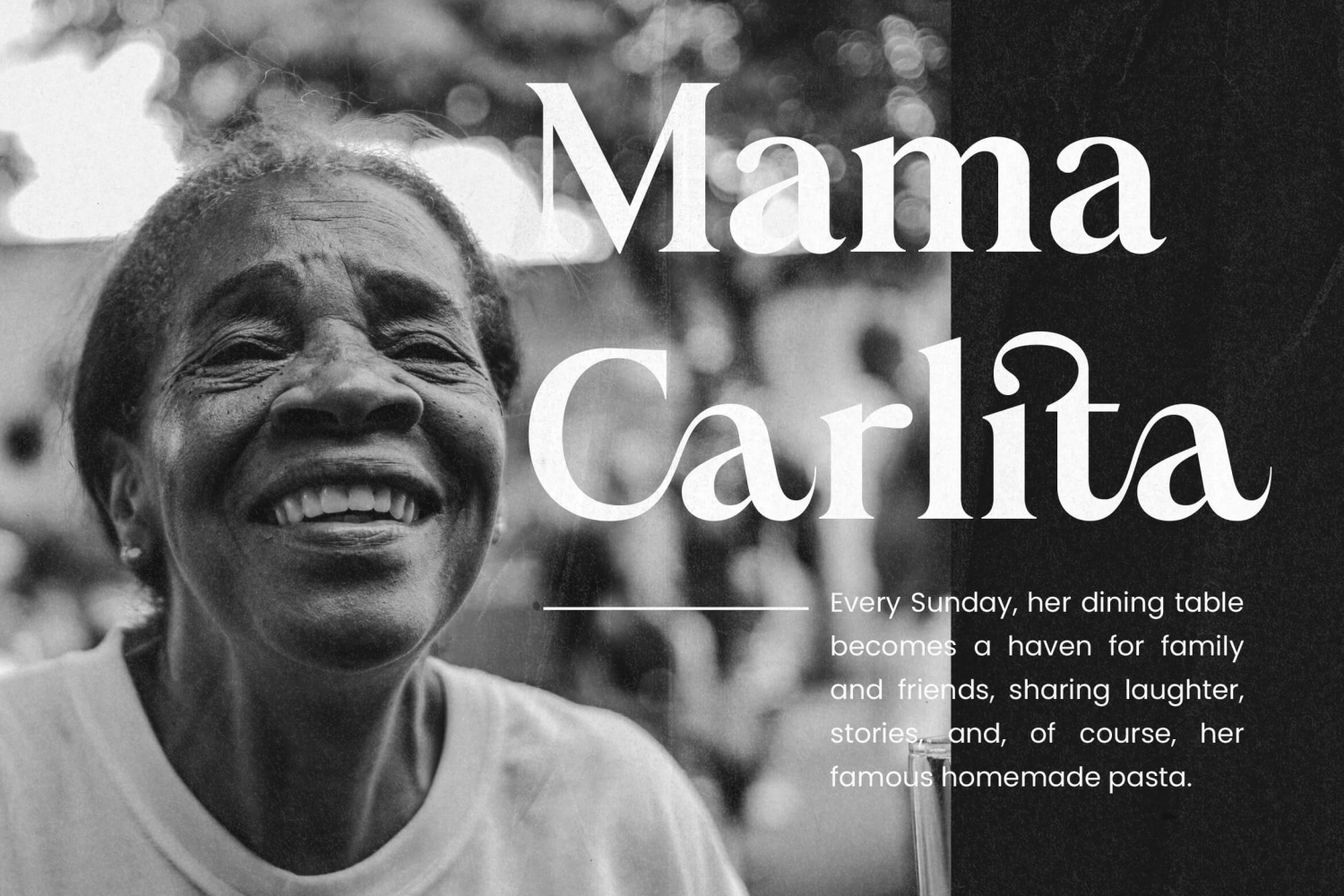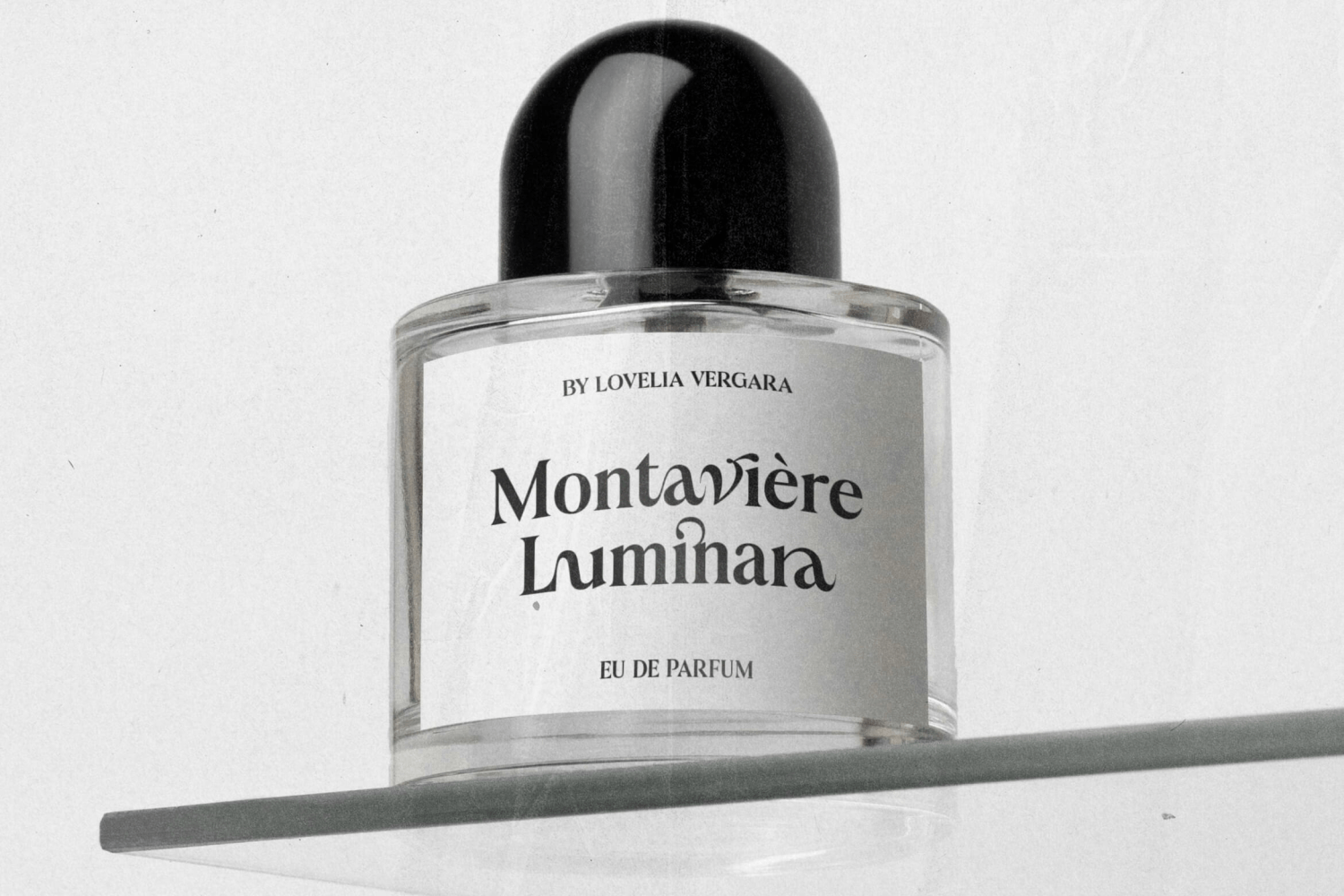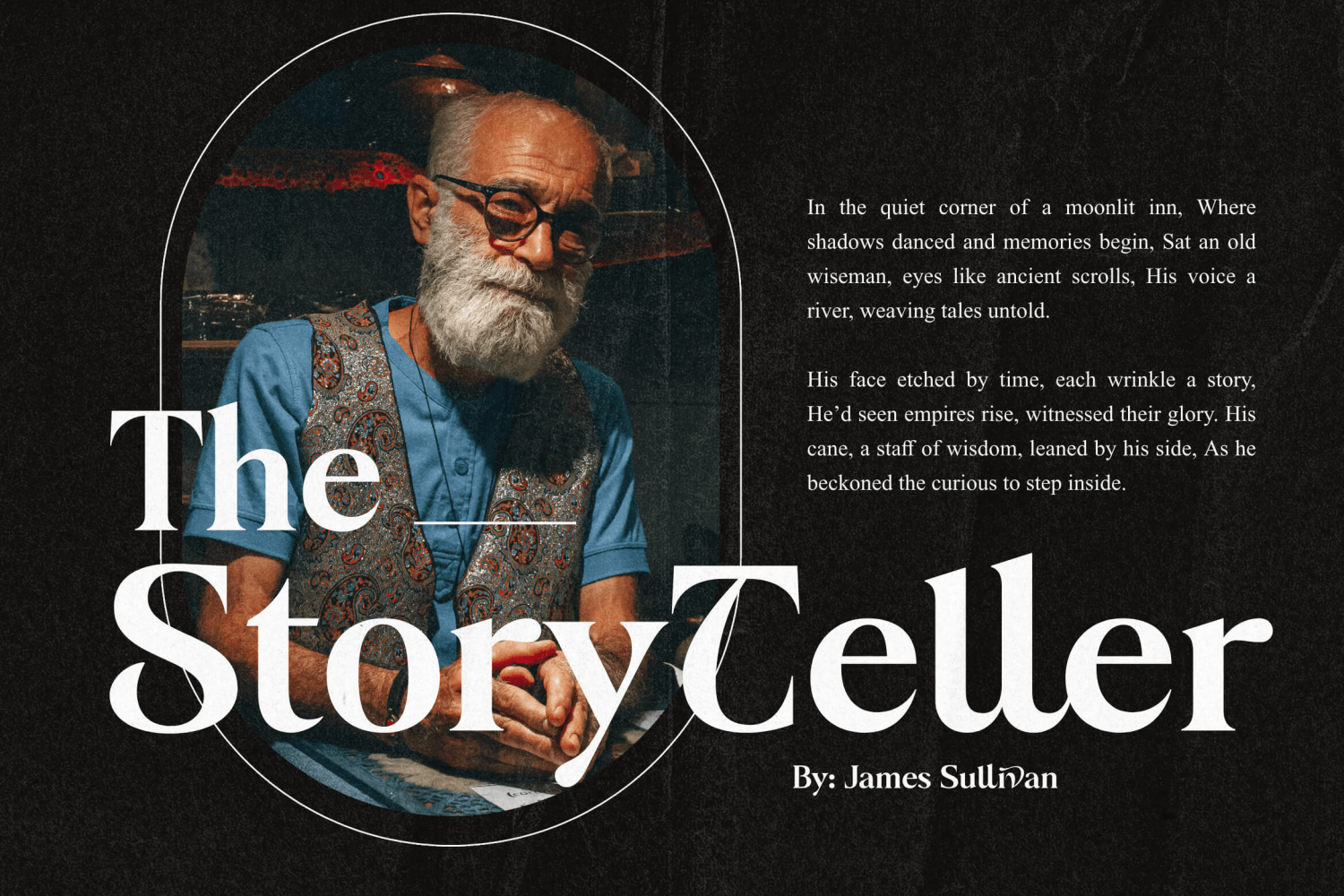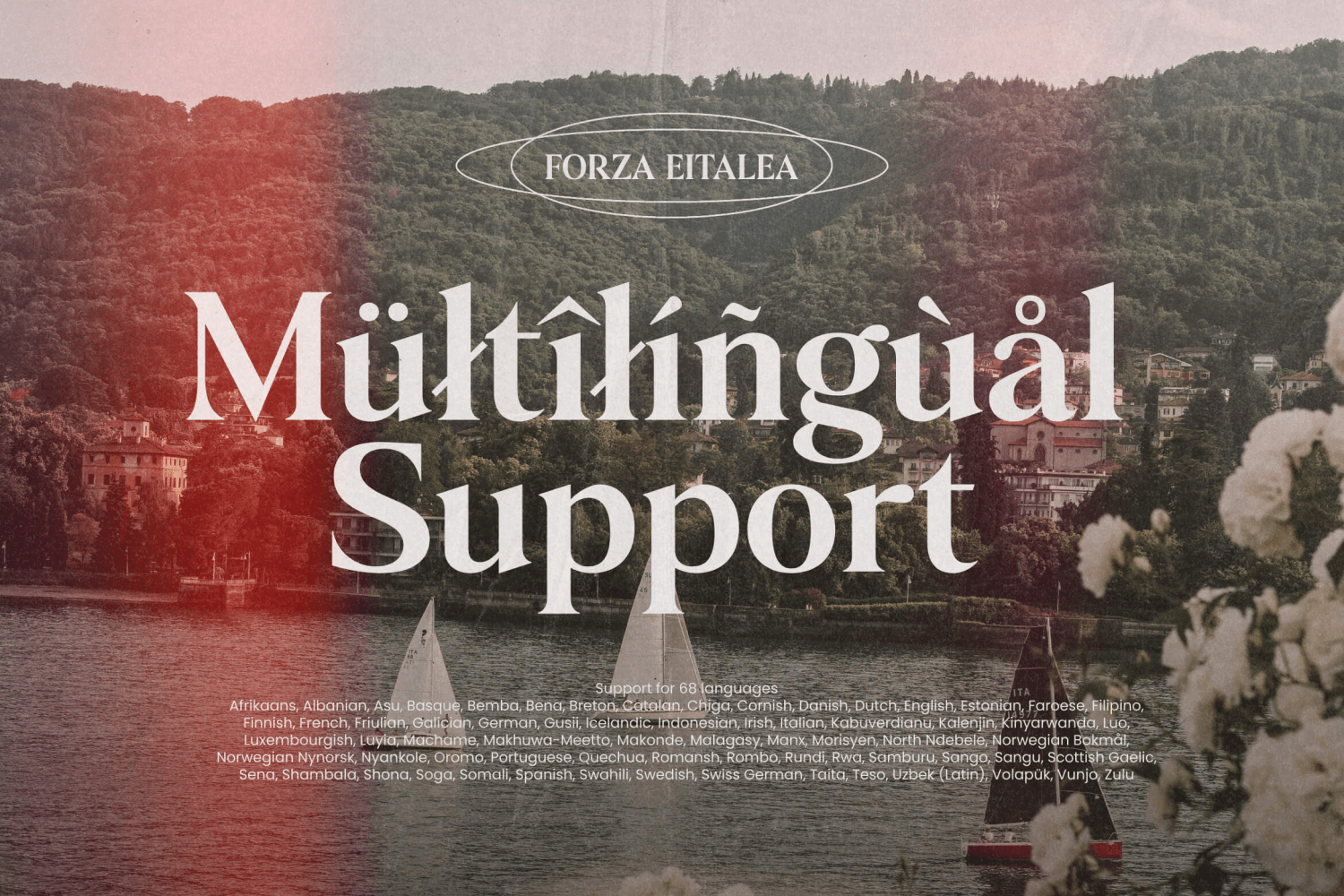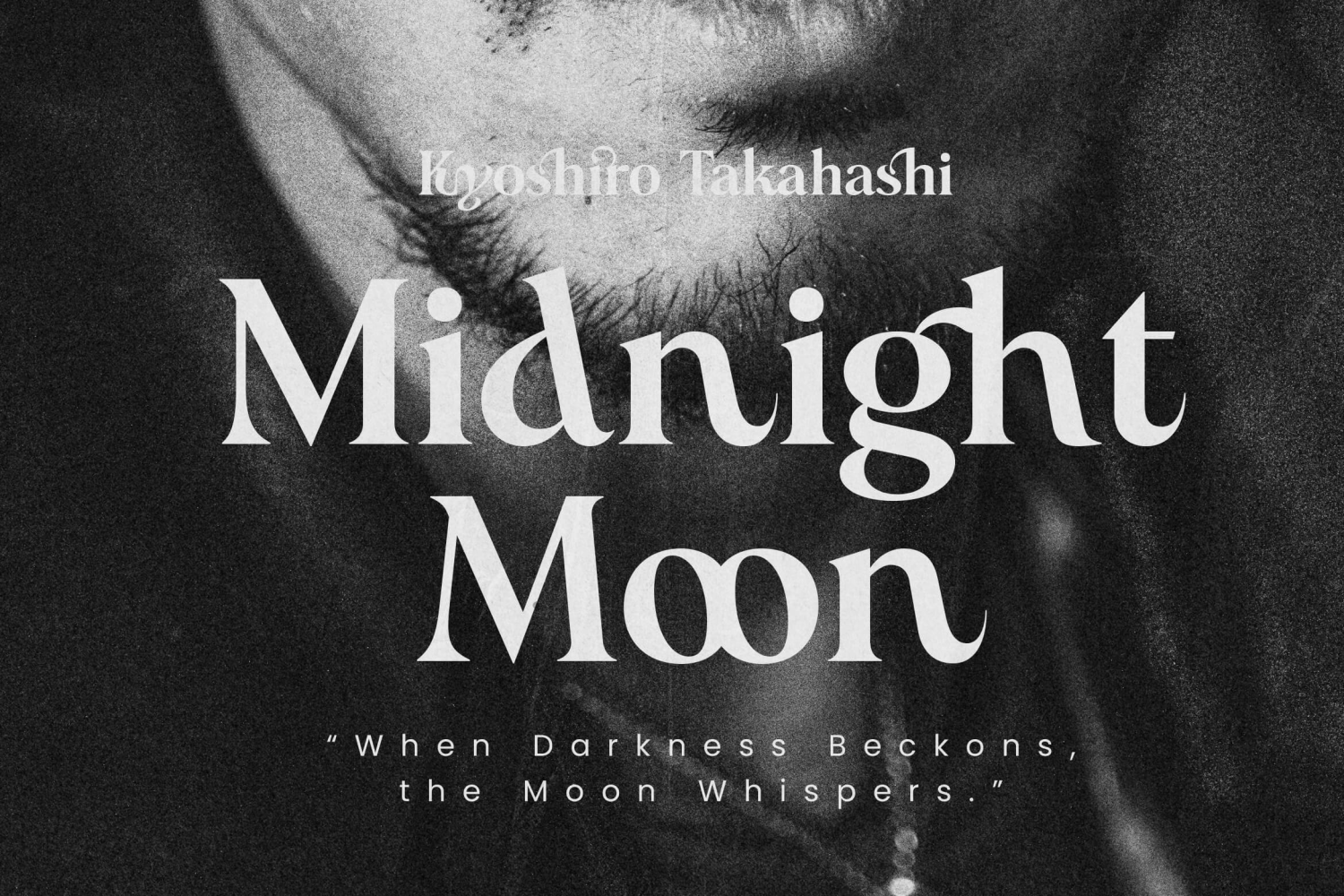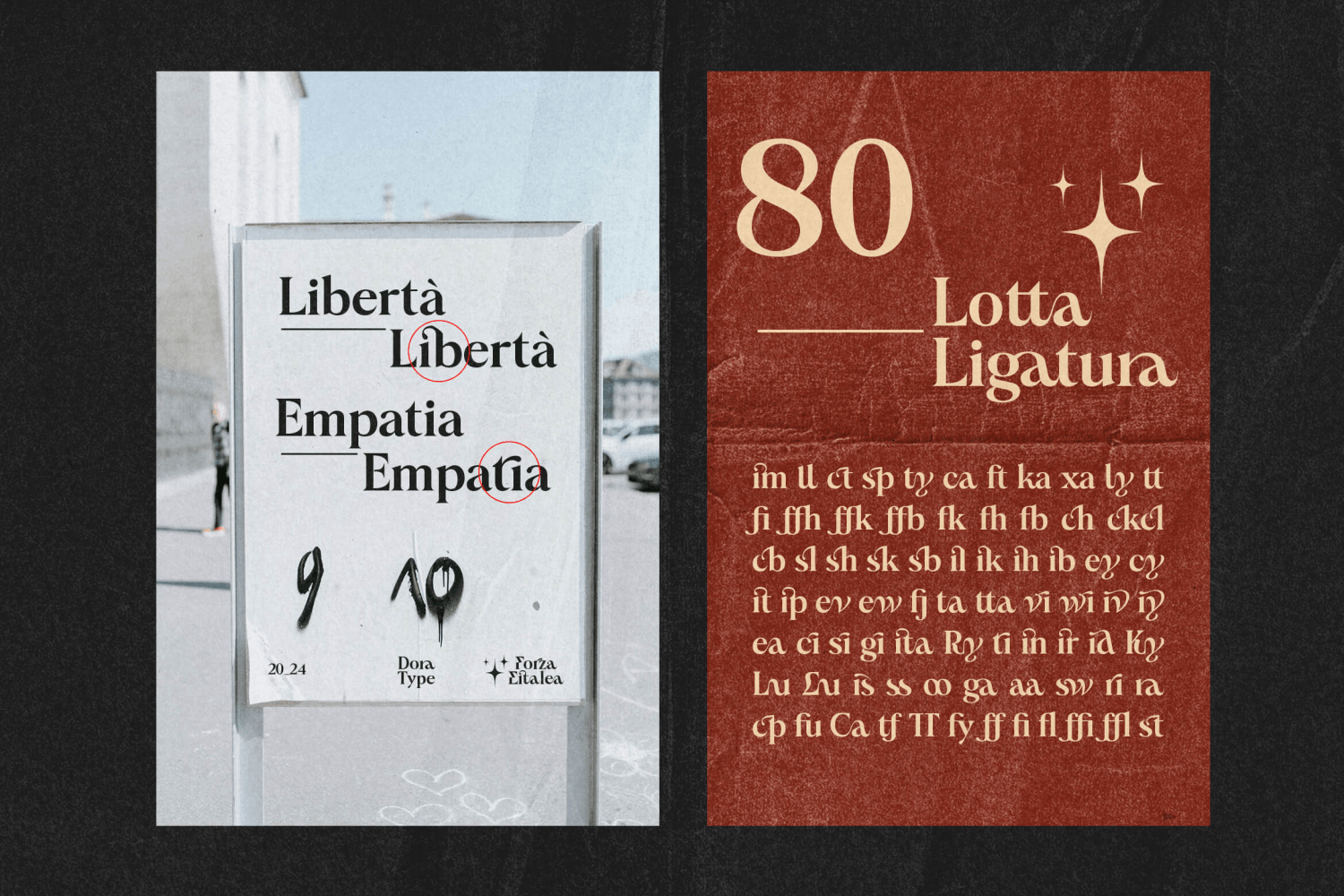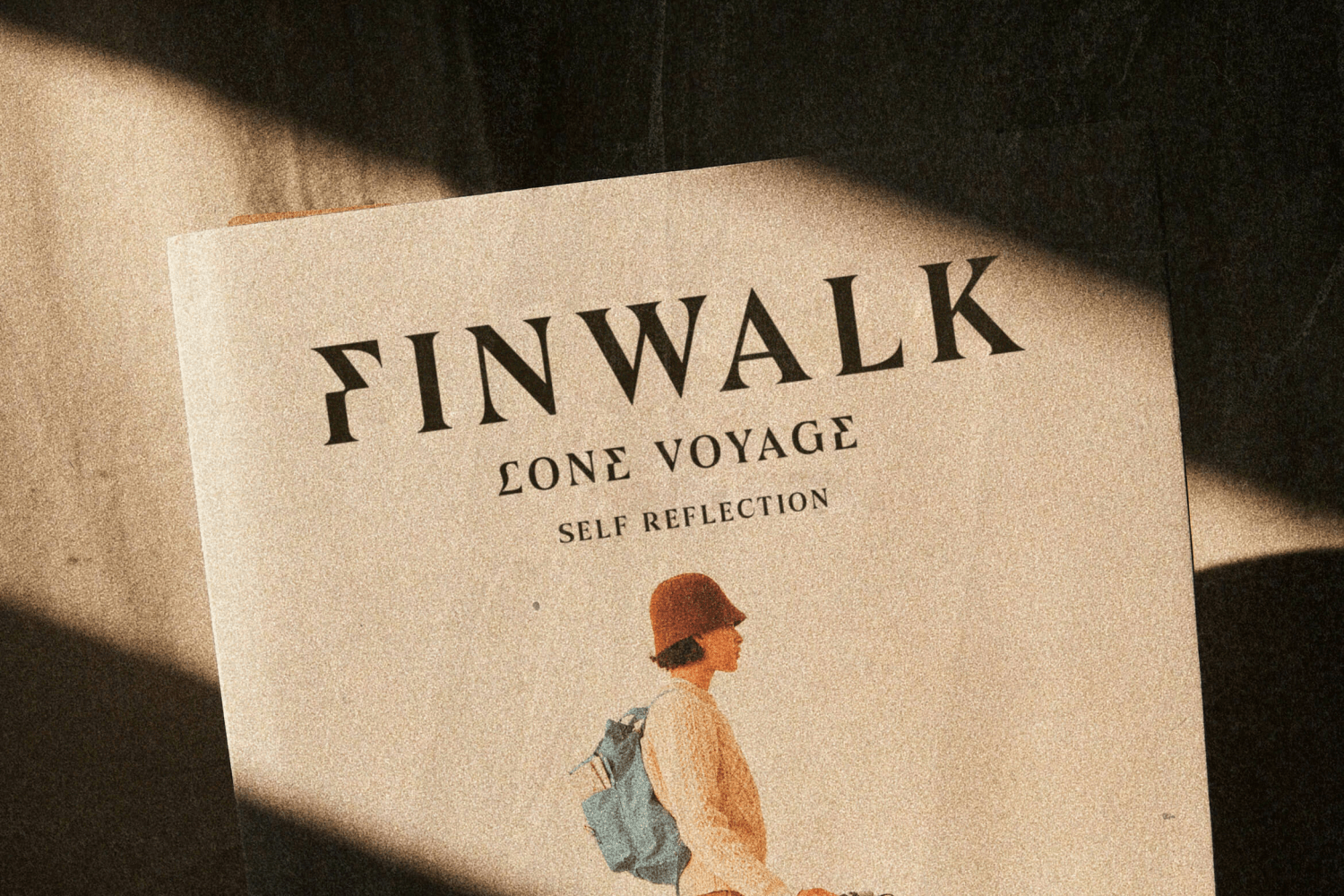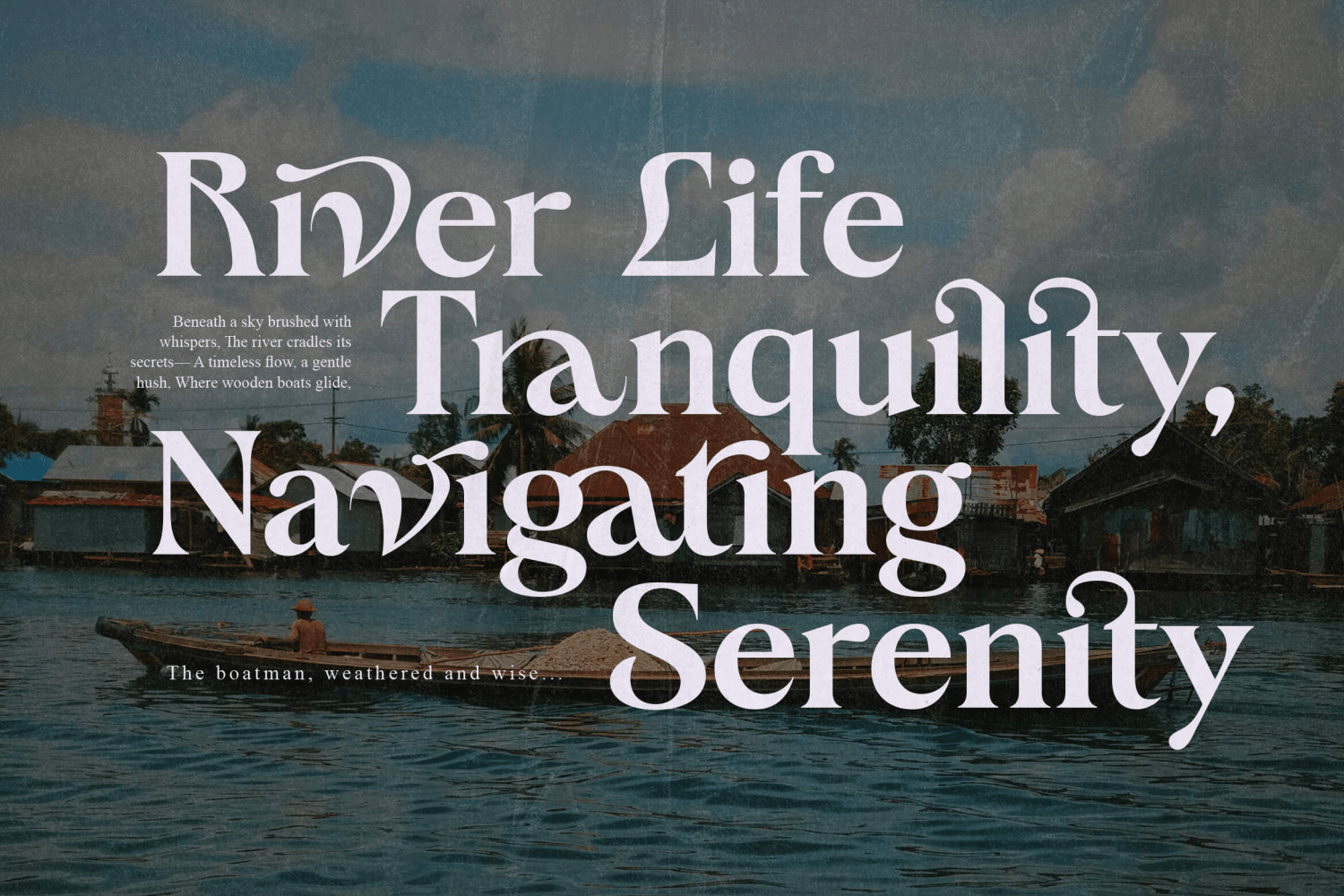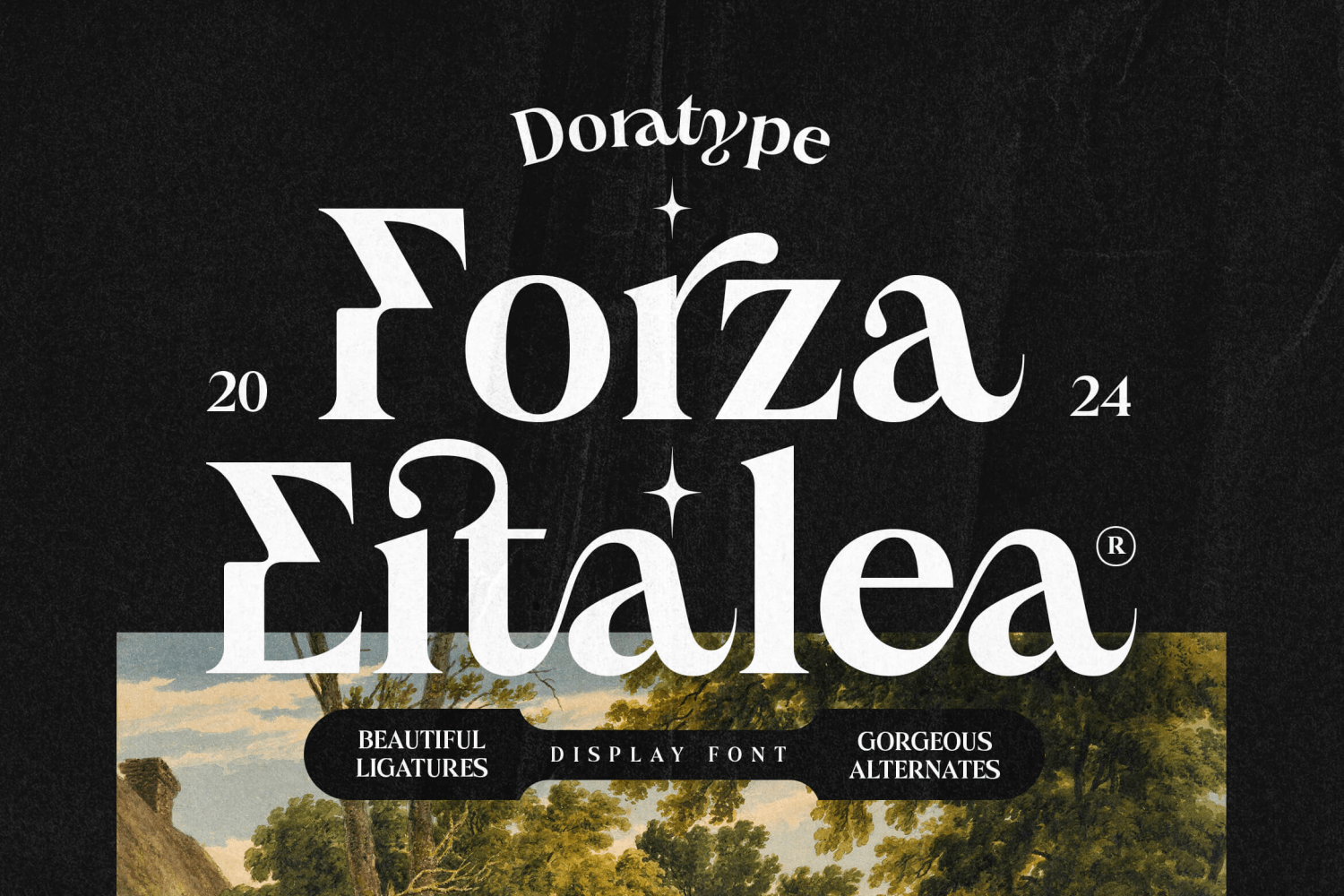
Forza Eitalea Regular
Introducing Forza Eitalea is a classic and classy modern serif typeface that radiates and is bold and looks amazing in both large and small settings. Forza Eitalea also has a wide selection of alternatives and ligatures ideal for any project that requires…